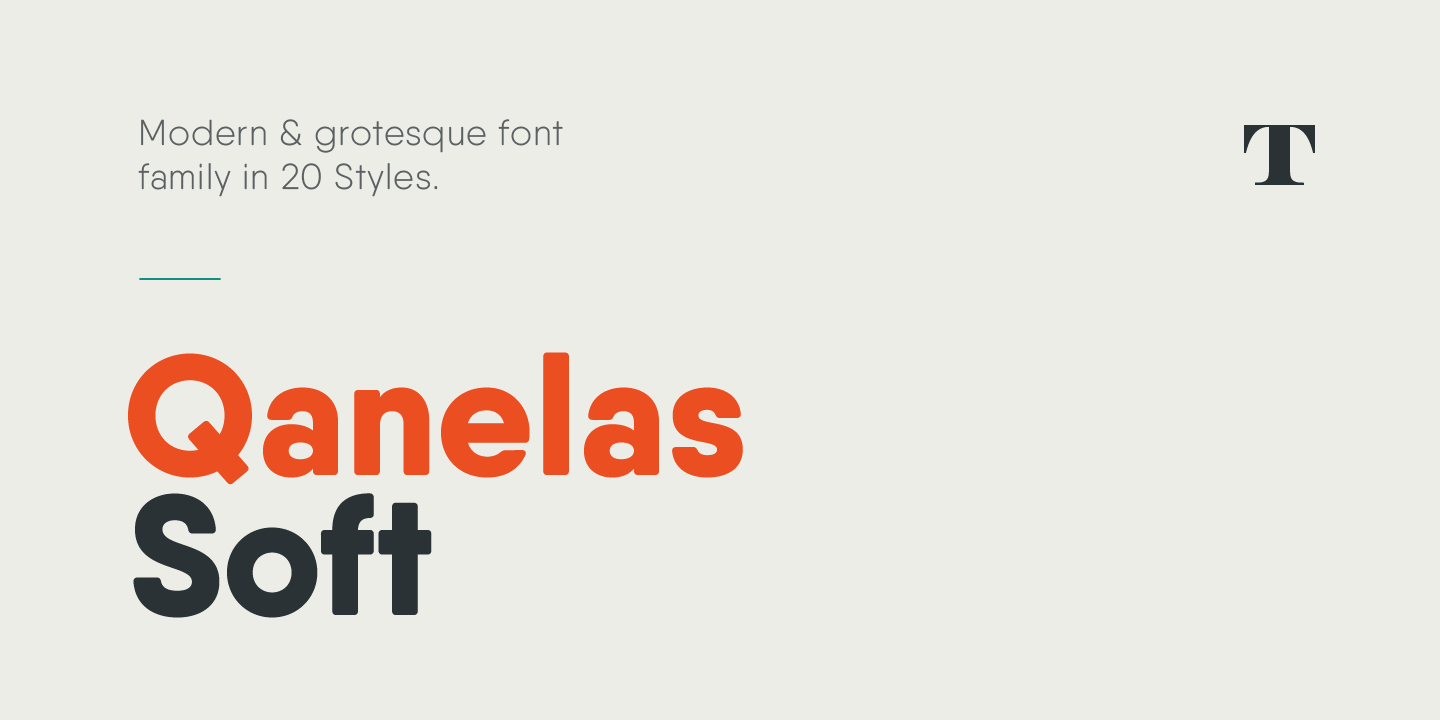
Qanelas Soft Font is ideal for gentle design projects including wellness centers, soft lifestyle brands, mindful meditation studios, gentle beauty products, calming healthcare facilities, peaceful yoga retreats, soothing spa services, and harmonious wellness campaigns. This tender typeface works perfectly for mental health organizations, gentle skincare brands, peaceful hospitality venues, soft interior design firms, and projects that celebrate the importance of gentleness and emotional well-being in modern living.
What makes Qanelas Soft Font exciting is its gentle contemporary character that perfectly captures the essence of soft sophistication and mindful elegance. The font features rounded letterforms with soft curves that reflect the calming nature and therapeutic quality of gentle design approaches. Its soothing design elements embody the spirit of wellness consciousness and emotional sensitivity, making it perfect for projects that need to convey comfort, peace, and connection to mindful culture. The carefully crafted soft proportions create an atmosphere of gentle sophistication and wellness authenticity.
Qanelas Soft Font comes in multiple family variations including gentle, soft, calming, and mindful styles. Each weight maintains the distinctive wellness character while offering different levels of gentle intensity and peaceful presence. The font family includes soft alternates, gentle ligatures, and wellness variations that provide designers with comprehensive options for creating truly soothing and authentically mindful typographic compositions that celebrate gentle excellence.
Whether you're designing wellness branding, creating gentle marketing materials, or developing peaceful promotional graphics, Qanelas Soft Font Free Download provides the perfect typographic foundation for projects that celebrate wellness excellence and gentle sophistication. This remarkable typeface transforms ordinary text into compelling expressions of gentle wisdom and mindful elegance. Download this soothing font today and comfort your design projects with the wellness authenticity and gentle refinement that captures the essential spirit of mindful living and emotional well-being.